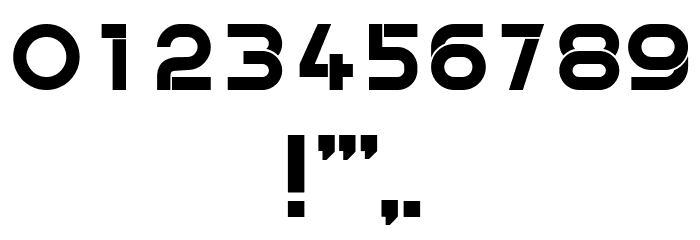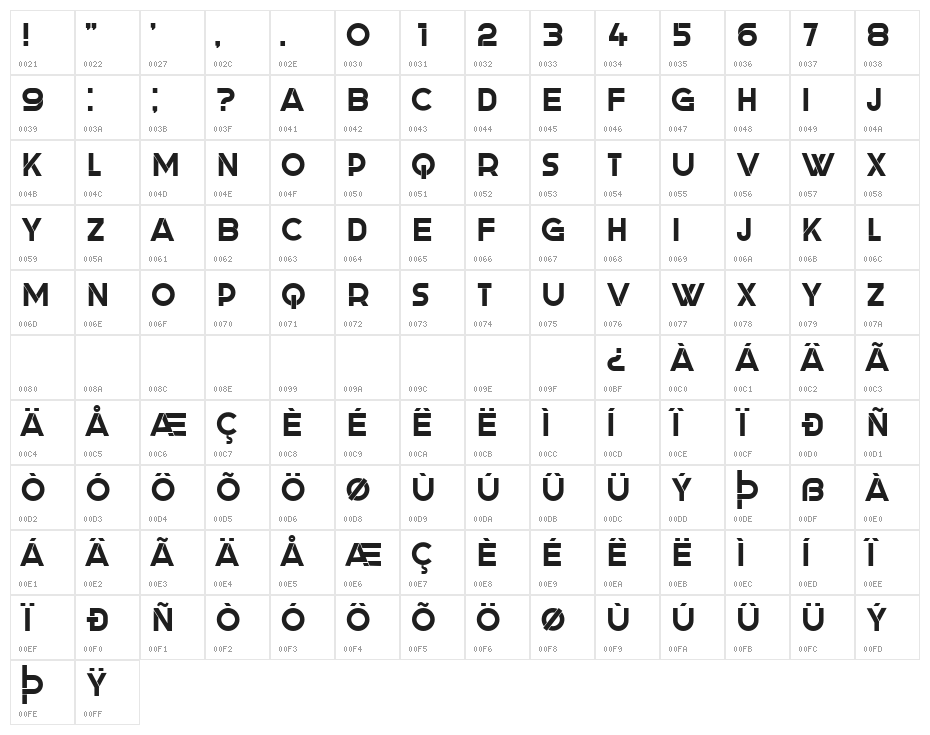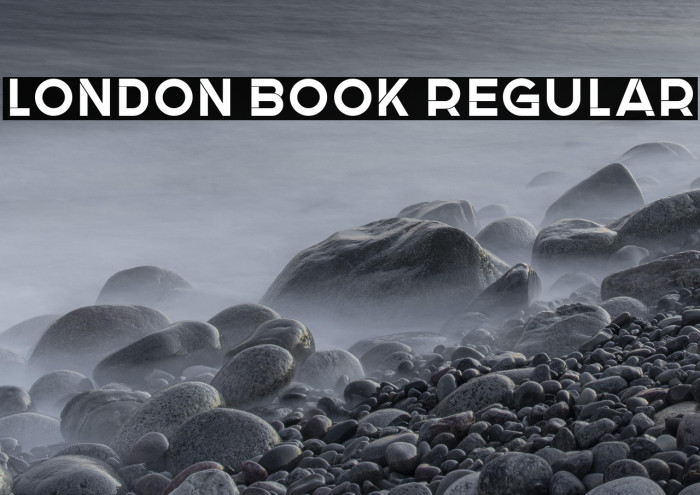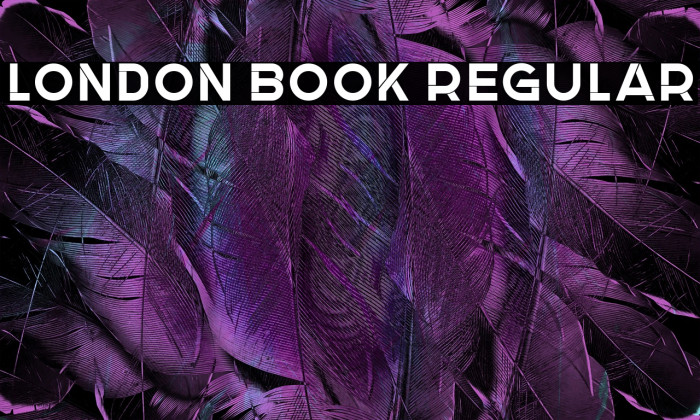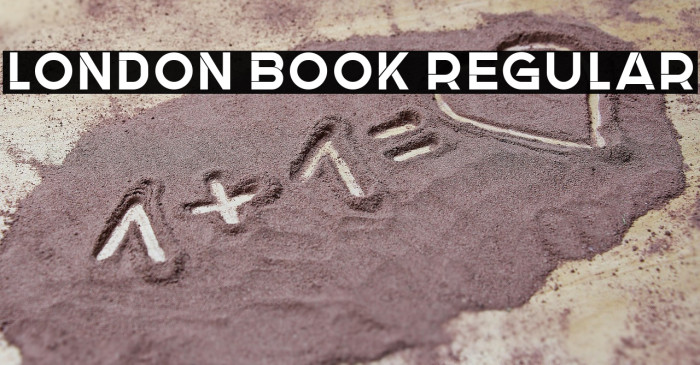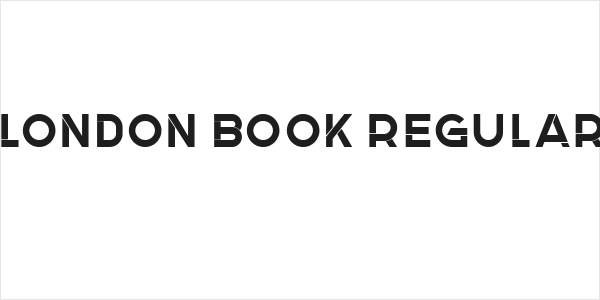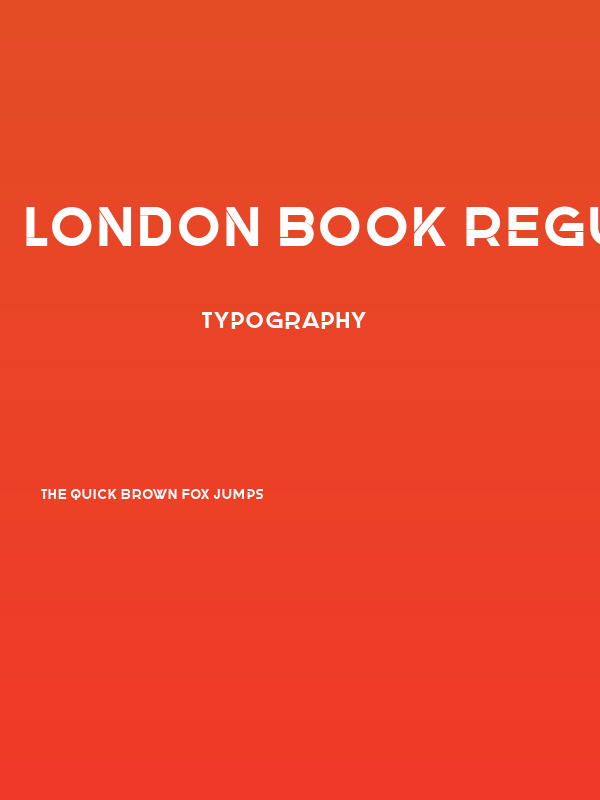
London Book Regular Font
London Book Regular Description
This font features a bold and geometric design with a modern aesthetic. The characters are constructed with clean, straight lines and sharp angles, giving it a futuristic and sleek appearance. The uppercase letters are particularly striking, with a uniform height and width that create a strong visual impact. The lowercase letters maintain the same geometric style, ensuring consistency throughout the typeface. The numbers are equally bold and clear, making them highly legible. Special characters are designed with the same attention to detail, providing a cohesive look across all elements.
| Proposed Projects | Ideal for branding, headlines, posters, and digital media where a modern and impactful look is desired. |